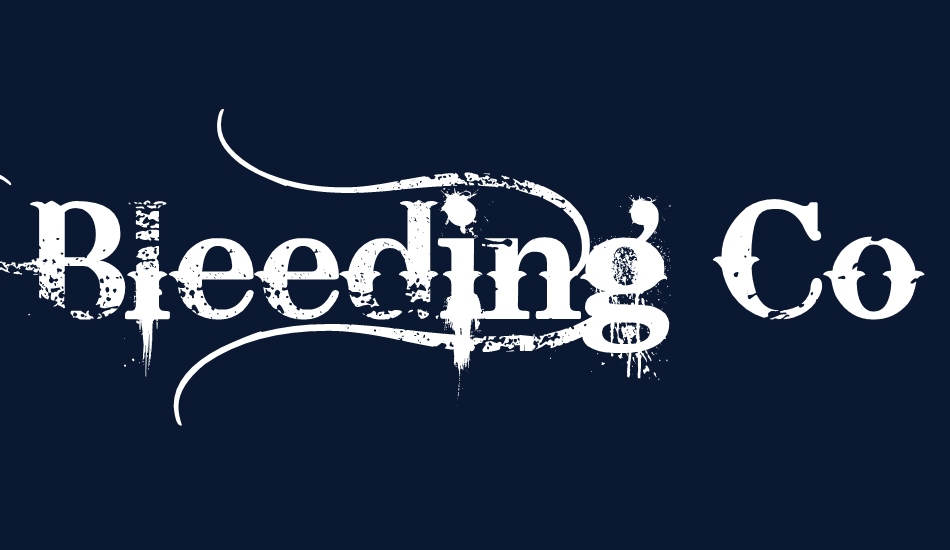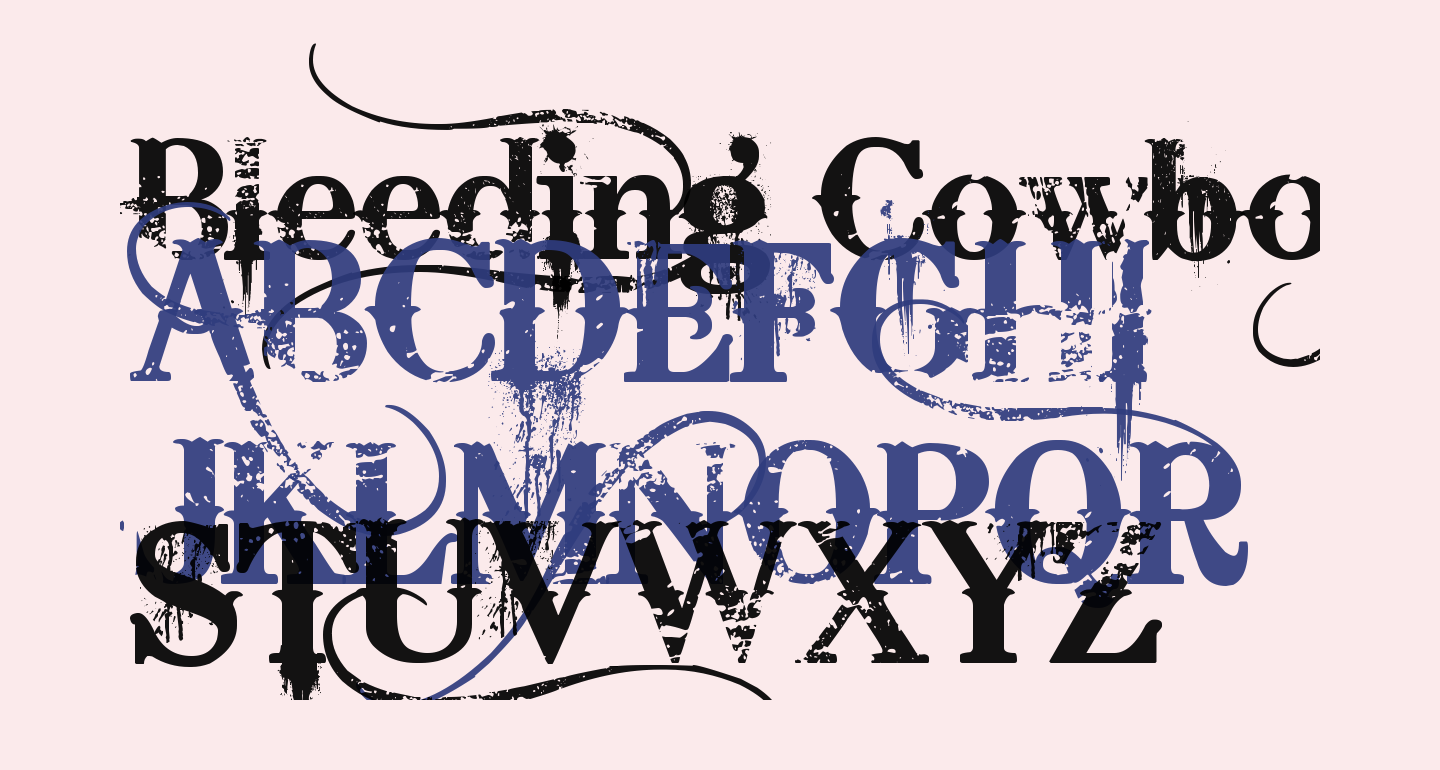
Bleeding Cowboy Font
Bleeding Cowboy Font - Perfect for those fashioned and overloaded texts. Web fonts that are always trendy: Web download bleeding cowboys font, a free western font designed by segments design fka last soundtrack. Discover and customize the font bleeding. Web bleeding cowboys is a custom font by segments design that features a western theme with cowboy hats, boots, and stars.
Perfect for those fashioned and overloaded texts. Web fonts that are always trendy: Web download bleeding cowboys font, a free western font designed by segments design fka last soundtrack. Discover and customize the font bleeding. Web bleeding cowboys is a custom font by segments design that features a western theme with cowboy hats, boots, and stars.
Web bleeding cowboys is a custom font by segments design that features a western theme with cowboy hats, boots, and stars. Web fonts that are always trendy: Discover and customize the font bleeding. Perfect for those fashioned and overloaded texts. Web download bleeding cowboys font, a free western font designed by segments design fka last soundtrack.
Web download bleeding cowboys font, a free western font designed by segments design fka last soundtrack. Web fonts that are always trendy: Perfect for those fashioned and overloaded texts. Discover and customize the font bleeding. Web bleeding cowboys is a custom font by segments design that features a western theme with cowboy hats, boots, and stars.
Perfect for those fashioned and overloaded texts. Web fonts that are always trendy: Discover and customize the font bleeding. Web download bleeding cowboys font, a free western font designed by segments design fka last soundtrack. Web bleeding cowboys is a custom font by segments design that features a western theme with cowboy hats, boots, and stars.
Web fonts that are always trendy: Web bleeding cowboys is a custom font by segments design that features a western theme with cowboy hats, boots, and stars. Perfect for those fashioned and overloaded texts. Web download bleeding cowboys font, a free western font designed by segments design fka last soundtrack. Discover and customize the font bleeding.
Web download bleeding cowboys font, a free western font designed by segments design fka last soundtrack. Perfect for those fashioned and overloaded texts. Web bleeding cowboys is a custom font by segments design that features a western theme with cowboy hats, boots, and stars. Discover and customize the font bleeding. Web fonts that are always trendy:
Web bleeding cowboys is a custom font by segments design that features a western theme with cowboy hats, boots, and stars. Web download bleeding cowboys font, a free western font designed by segments design fka last soundtrack. Discover and customize the font bleeding. Web fonts that are always trendy: Perfect for those fashioned and overloaded texts.
Discover and customize the font bleeding. Web download bleeding cowboys font, a free western font designed by segments design fka last soundtrack. Perfect for those fashioned and overloaded texts. Web bleeding cowboys is a custom font by segments design that features a western theme with cowboy hats, boots, and stars. Web fonts that are always trendy:
Bleeding Cowboys Font Dafont Free
Perfect for those fashioned and overloaded texts. Discover and customize the font bleeding. Web fonts that are always trendy: Web bleeding cowboys is a custom font by segments design that features a western theme with cowboy hats, boots, and stars. Web download bleeding cowboys font, a free western font designed by segments design fka last soundtrack.
Bleeding Cowboys free Font What Font Is
Web bleeding cowboys is a custom font by segments design that features a western theme with cowboy hats, boots, and stars. Web download bleeding cowboys font, a free western font designed by segments design fka last soundtrack. Discover and customize the font bleeding. Web fonts that are always trendy: Perfect for those fashioned and overloaded texts.
Bleeding Cowboy A Font That Aptly Captures the Struggles and
Web download bleeding cowboys font, a free western font designed by segments design fka last soundtrack. Web bleeding cowboys is a custom font by segments design that features a western theme with cowboy hats, boots, and stars. Discover and customize the font bleeding. Web fonts that are always trendy: Perfect for those fashioned and overloaded texts.
Bleeding Cowboys font by Last Soundtrack FontRiver
Perfect for those fashioned and overloaded texts. Web download bleeding cowboys font, a free western font designed by segments design fka last soundtrack. Web bleeding cowboys is a custom font by segments design that features a western theme with cowboy hats, boots, and stars. Web fonts that are always trendy: Discover and customize the font bleeding.
Web bleeding cowboys is a custom font by segments design that features a western theme with cowboy hats, boots, and stars. Discover and customize the font bleeding. Web download bleeding cowboys font, a free western font designed by segments design fka last soundtrack. Perfect for those fashioned and overloaded texts.